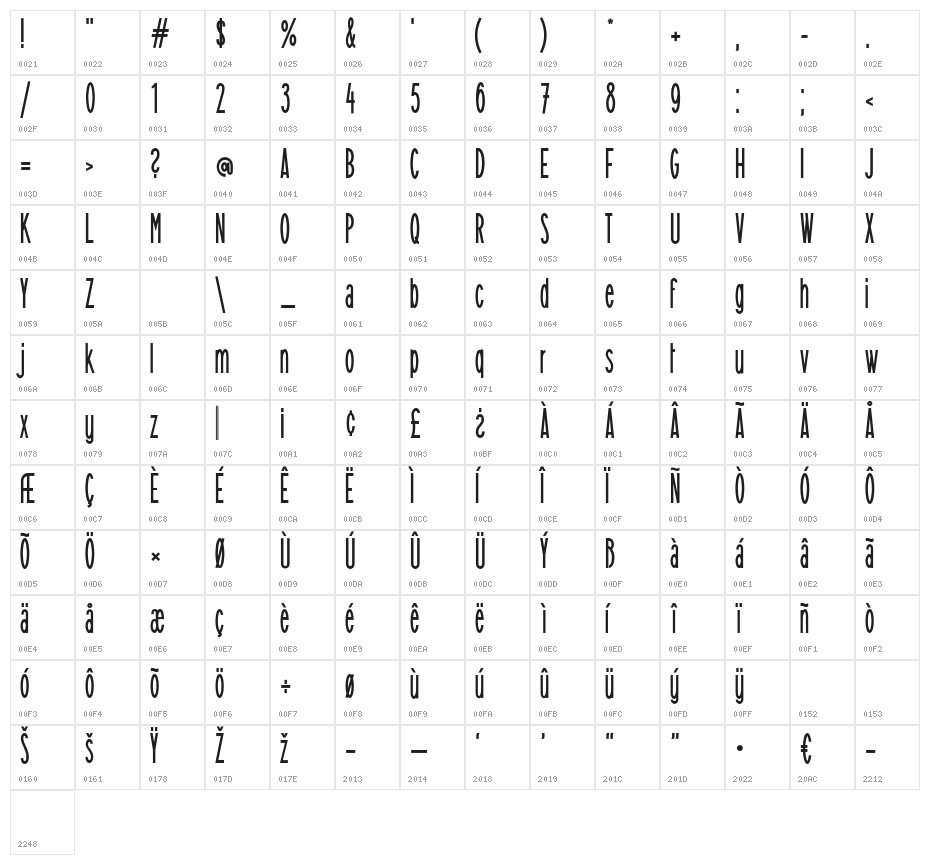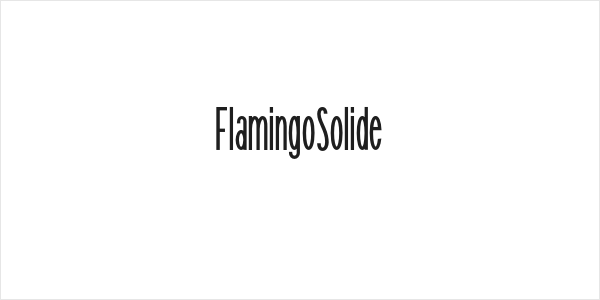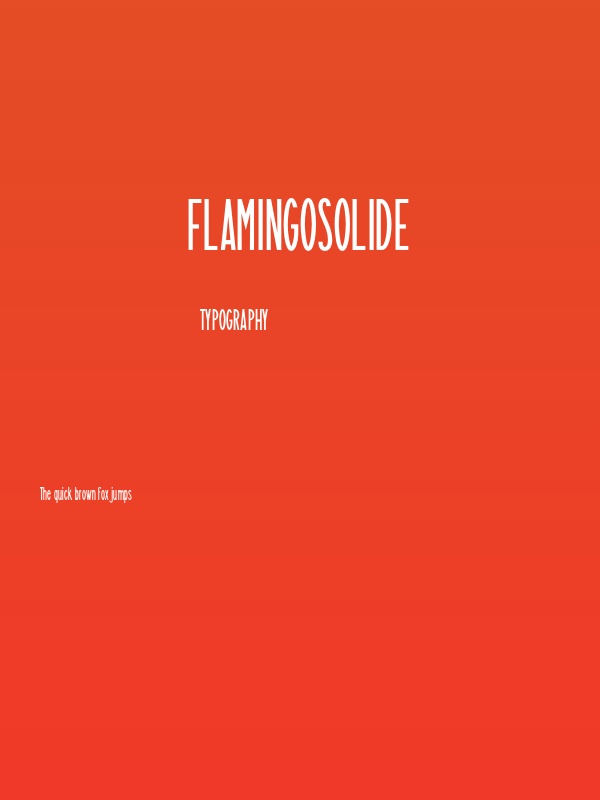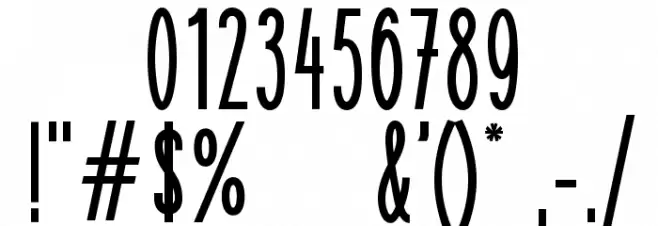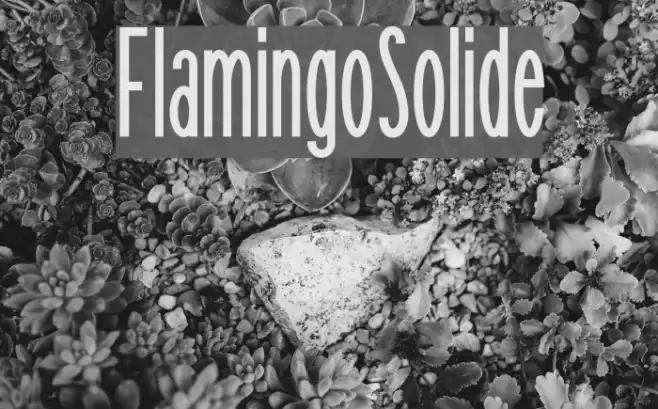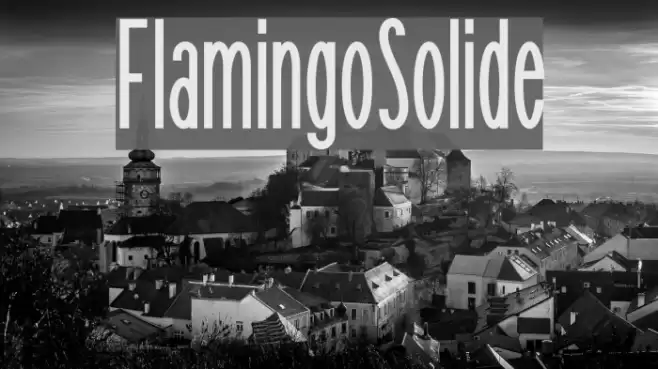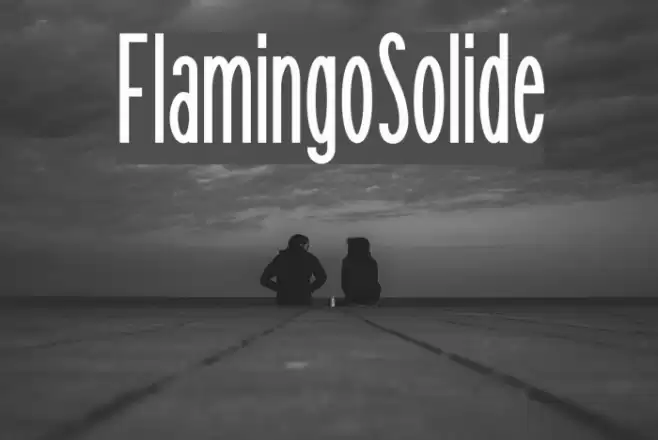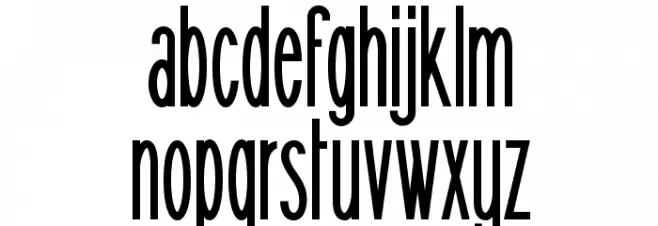
FlamingoSolide Font
| वजन | Solide |
| श्रेणियाँ | Modern |
| चौड़ाई | Condensed |
| उपयोग का मामला | Headlines, Logos, Posters |
| सुझाए गए प्रोजेक्ट | Ideal for modern branding, advertising, and editorial design projects. Suitable for use in headlines, posters, and digital media where a contemporary and stylish look is desired. |